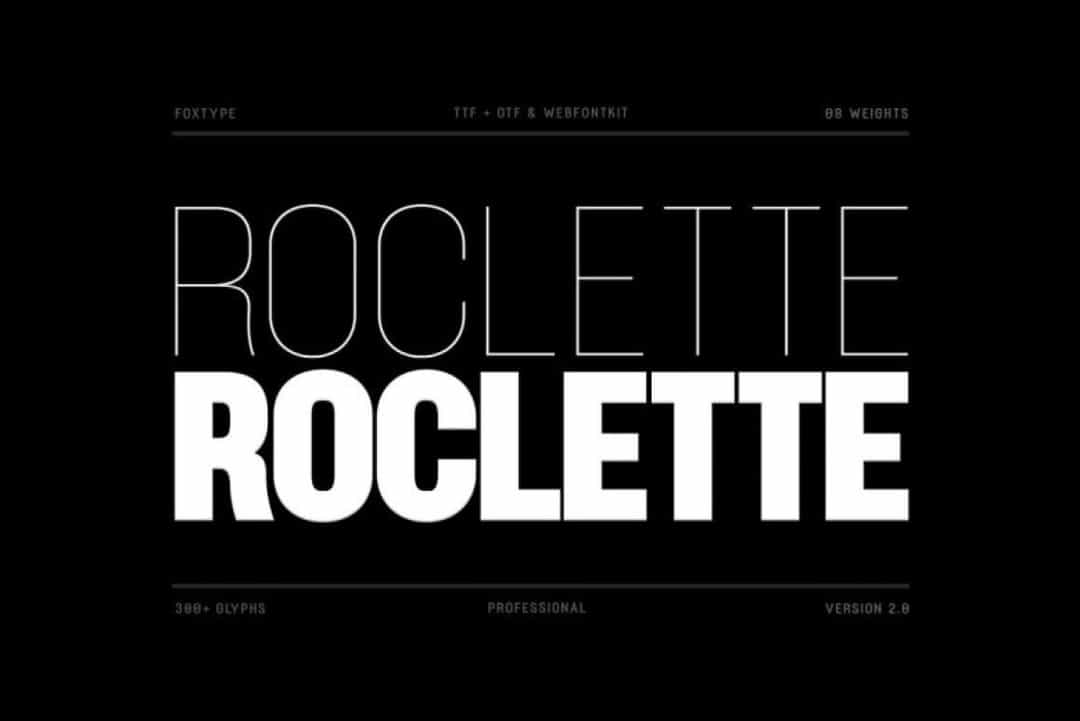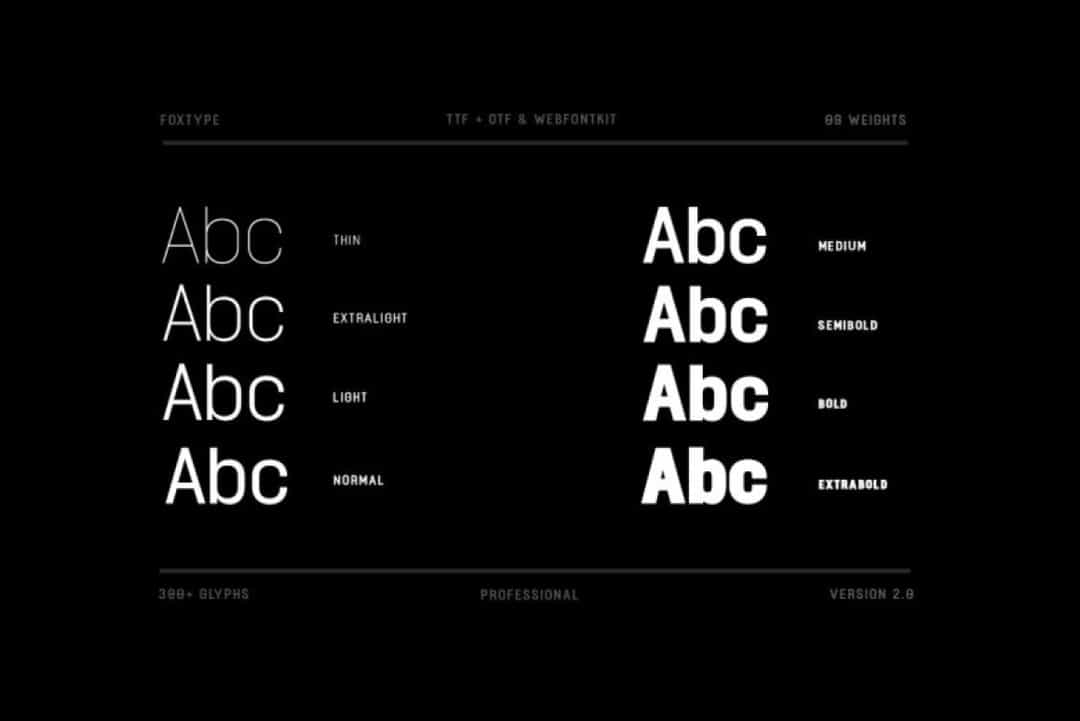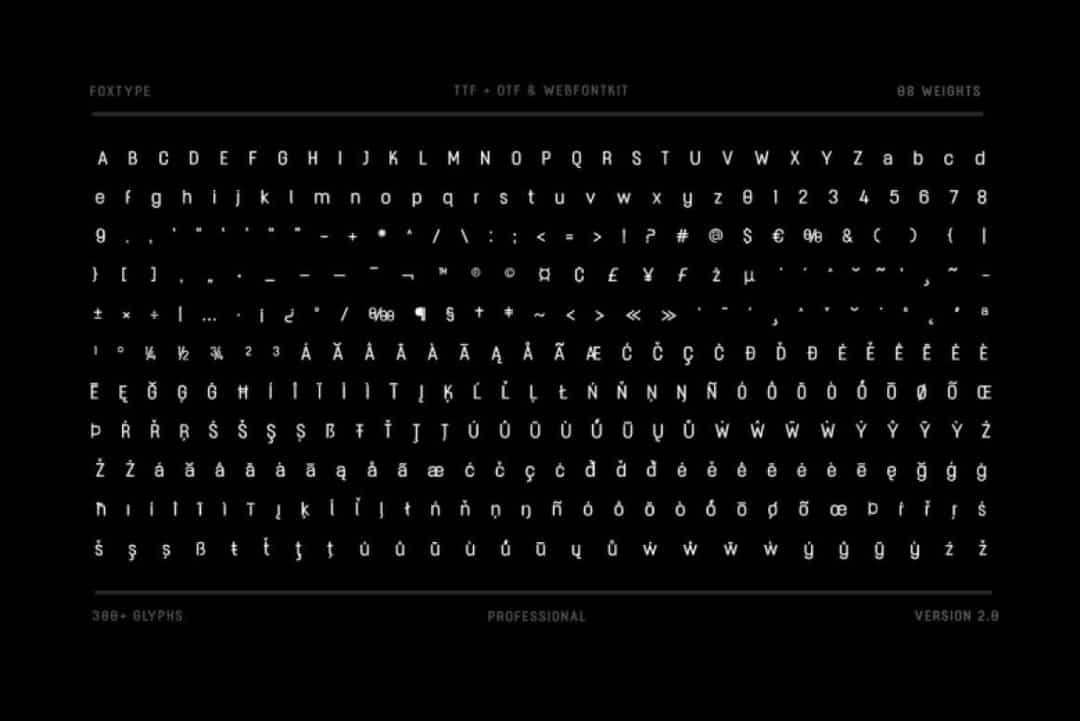
Roclette Pro is an exquisite font from the powerful family of fonts known as Roclette. Reliable yet powerful in its style, with controlled forms and modern touches. It looks fantastic in magazines, logos and films alike; also perfect for headlines, branding paragraphs, captions or posters thanks to its various weight options that allow you to experiment freely.